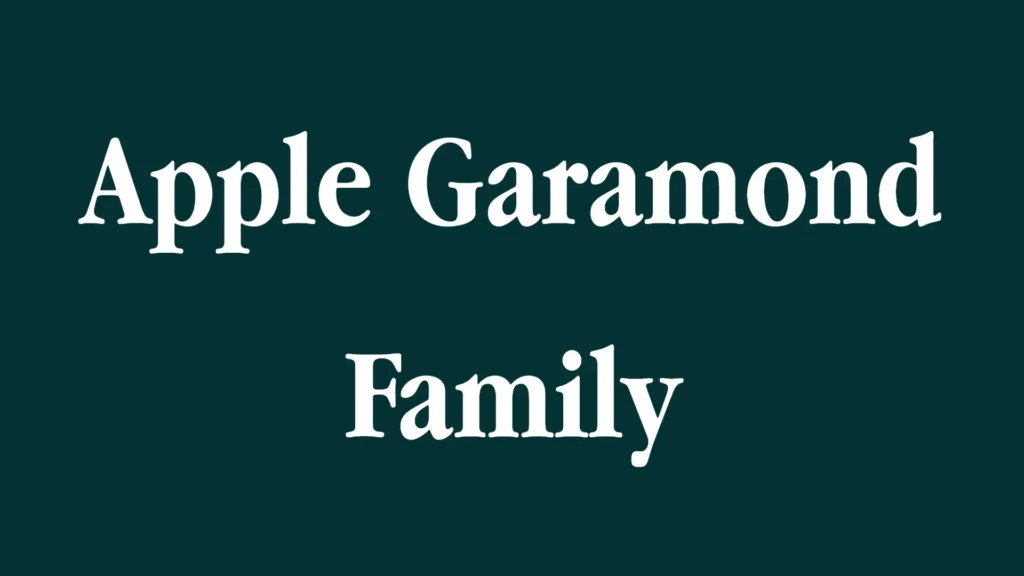
Apple Garamond Font
Apple Garamond is a serif font. Small strokes at the ends of its letters (the serifs) give it a classic, trustworthy look. You get four styles in one free ZIP, and the preview above lets you test each one before you download.
- Font styles: 4 (Regular, Bold, Bold Italic and Italic)
- Glyphs: 231 in the Regular style
With complete upper and lowercase letters and all ten digits, Apple Garamond is ready for real wording, not just a single headline. Everyday marks like &, !, ? and @ are there too. Thanks to its accented letters, it also works for Spanish, French, German, Portuguese and Italian, not just English.
Apple Garamond is a natural fit for book covers, magazine headlines and classic branding. Serif fonts shine in headlines and printed text. For long paragraphs on phones, check that it still reads well at small sizes. Because the family has more than one style, you can mix them in a single design for headings, subheadings and highlights.
Yes. Apple Garamond includes the accented letters needed for Spanish, French, German, Portuguese and Italian, so it works for more than just English.